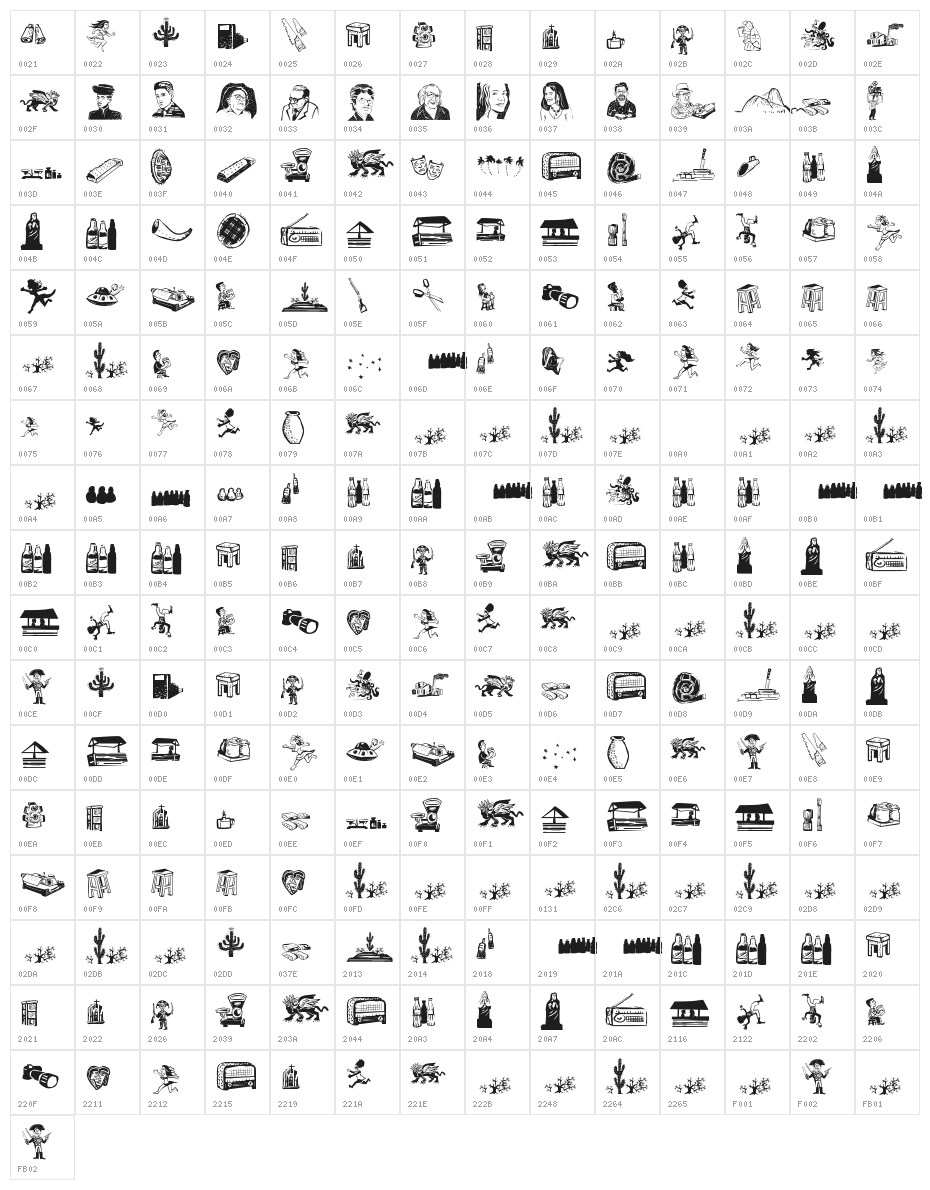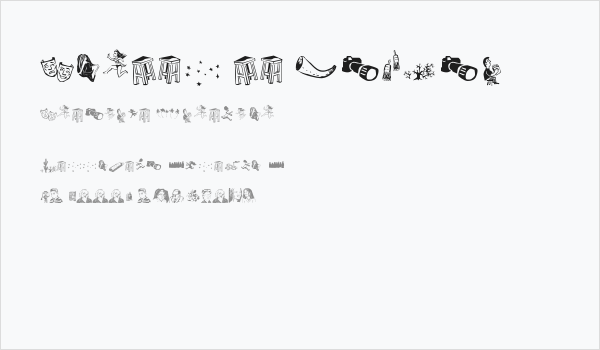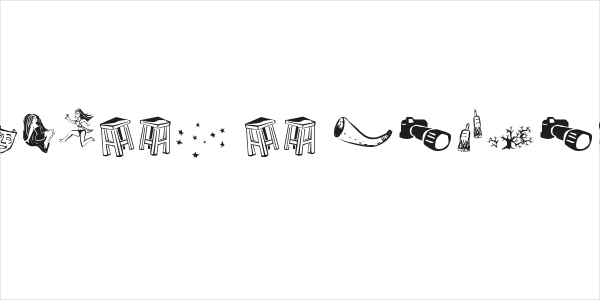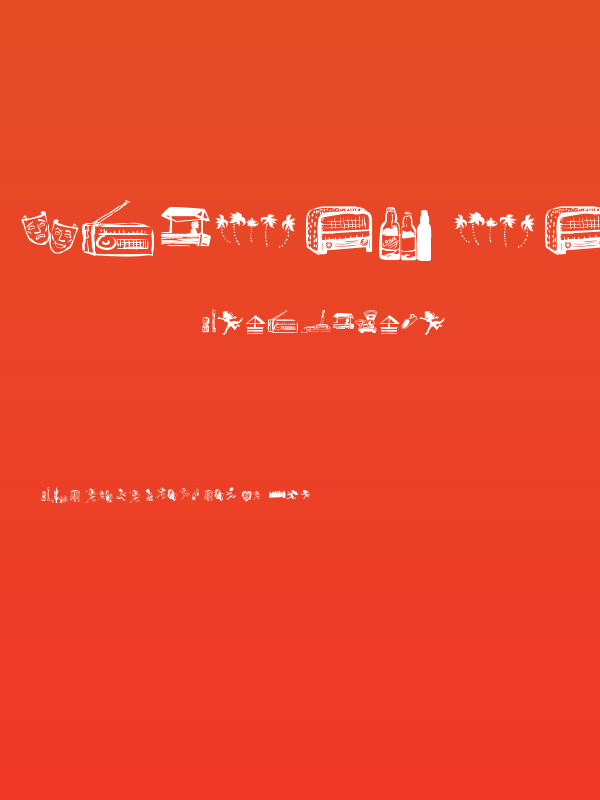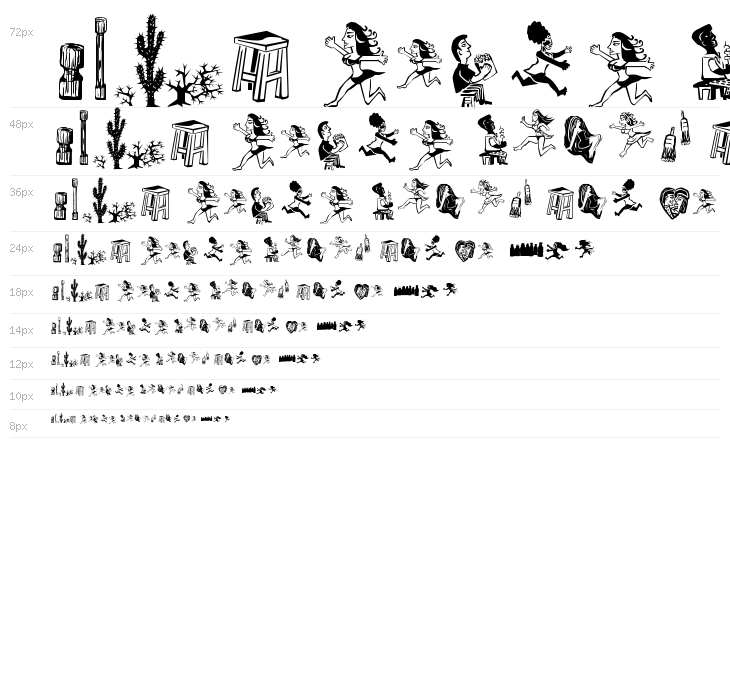
Cordel de Mangai Font
Cordel de Mangai Description
A highly decorative pictogram font featuring hand-drawn illustrations inspired by Brazilian folk culture, including people, animals, objects, and traditional motifs. Each glyph is a unique, detailed drawing rather than a standard letterform, evoking the style of woodcut prints and cordel literature.
| Overall Style | Decorative, Folk, Hand-drawn |
| Use Case | Logos, Posters, Illustrative headlines, Themed graphics |
| Proposed Projects | Cultural posters, event branding, educational materials, book covers, festival graphics, themed merchandise. |